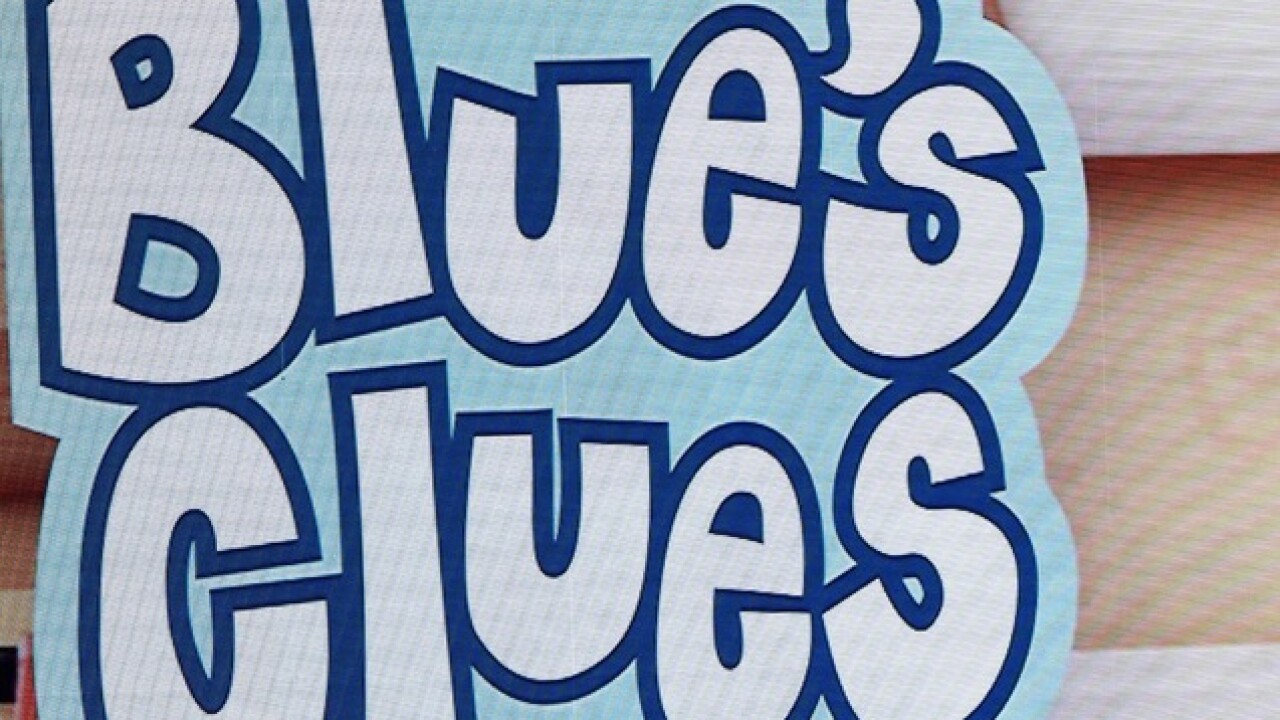
Blue's Clues Font
Blue's Clues Font - Web mar 25, 2015 at 15:07. You can download the font for free and use it on. Web blue's clues is a font inspired by the popular children's show blue's clues.
You can download the font for free and use it on. Web mar 25, 2015 at 15:07. Web blue's clues is a font inspired by the popular children's show blue's clues.
Web blue's clues is a font inspired by the popular children's show blue's clues. You can download the font for free and use it on. Web mar 25, 2015 at 15:07.
Web blue's clues is a font inspired by the popular children's show blue's clues. Web mar 25, 2015 at 15:07. You can download the font for free and use it on.
Web mar 25, 2015 at 15:07. You can download the font for free and use it on. Web blue's clues is a font inspired by the popular children's show blue's clues.
Web blue's clues is a font inspired by the popular children's show blue's clues. Web mar 25, 2015 at 15:07. You can download the font for free and use it on.
You can download the font for free and use it on. Web mar 25, 2015 at 15:07. Web blue's clues is a font inspired by the popular children's show blue's clues.
Web mar 25, 2015 at 15:07. Web blue's clues is a font inspired by the popular children's show blue's clues. You can download the font for free and use it on.
You can download the font for free and use it on. Web blue's clues is a font inspired by the popular children's show blue's clues. Web mar 25, 2015 at 15:07.
Web mar 25, 2015 at 15:07. You can download the font for free and use it on. Web blue's clues is a font inspired by the popular children's show blue's clues.
Web blue's clues is a font inspired by the popular children's show blue's clues. You can download the font for free and use it on. Web mar 25, 2015 at 15:07.
You can download the font for free and use it on. Web blue's clues is a font inspired by the popular children's show blue's clues. Web mar 25, 2015 at 15:07.
Web Blue's Clues Is A Font Inspired By The Popular Children's Show Blue's Clues.